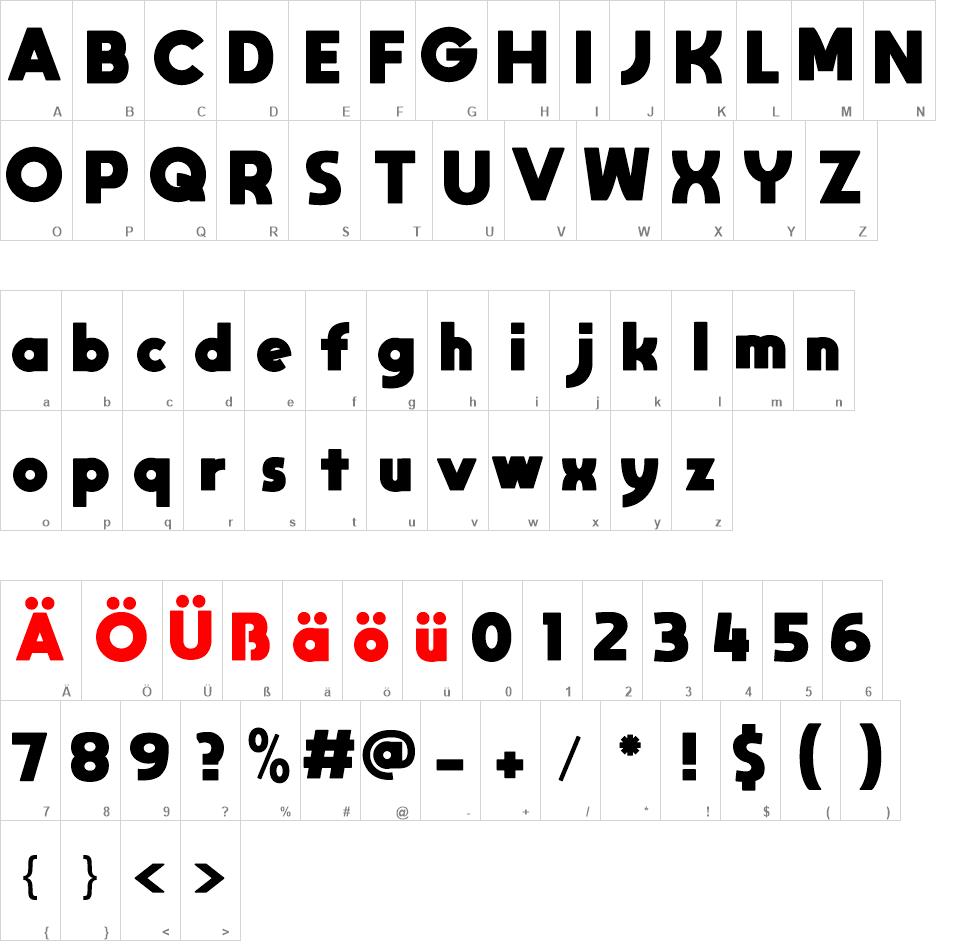
Moon Get!
Moon Get!  font
Moon Get!
"MOON GET!" is a typeface base on the "YOU GOT A MOON!" text and other various HUD elements of the Nintendo Switch game "Super Mario Odyssey".